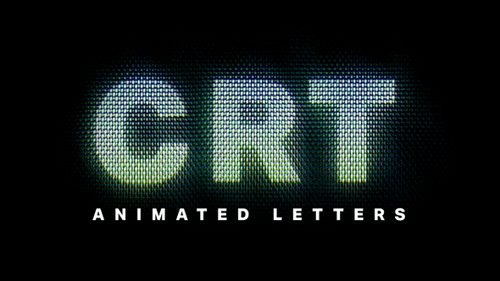
Get Ready Text Animation 4
Get ready text animation Glitch effect design for bold graphics, modern websites, digital marketing, video projects, social media posts, banners, and promotional materials.